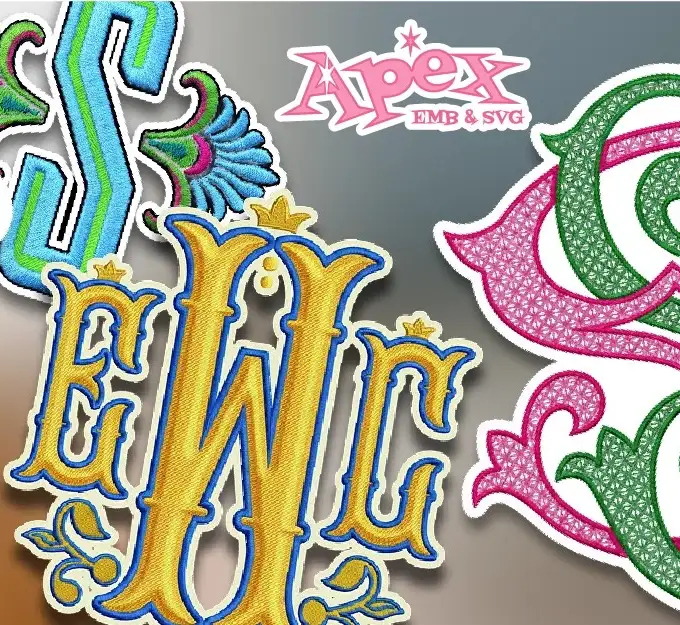
If you are choosing an embroidery font, 870+ products can be too many to browse without a plan. The useful starting point is three decisions: style, finished size, and file format. This guide maps the Apex collection around those choices. You can compare script, monogram, block, applique, 3D puff, and specialty styles, then narrow your choice before you download. The goal is simple: find lettering that suits the project and a format your machine or software can actually use. These are practical embroidery font examples you can use to compare styles.
A machine font is a digitized alphabet made for stitching, not simply a vector or typed outline. The file contains stitch information such as stitch type, underlay, pull compensation, and spacing. Each size is digitized separately so the lettering can stitch cleanly at that size. A design that looks good on screen can need different digitizing at another size.
That is why choosing by appearance alone can be misleading. Fabric, finished size, and intended use all affect the result. Apex groups its collection by visual style and by available file format. You will find fonts for embroidery projects ranging from names and monograms to teamwear, uniforms, gifts, and specialty lettering.
Start with script styles, monogram styles, or block styles. For monogram embroidery fonts, compare layouts built around initials. Then compare interlocking monogram fonts, decorative styles, formal and elegant fonts, casual styles, and whimsical styles. The collection also includes Curlz-style lettering, Greek styles, split monogram fonts, highly legible styles, TrueType styles, and bargain styles.
Script lettering gives names and words a connected, flowing look. Script is one of the strongest parts of the Apex collection, while chain stitch adds a distinct stitched texture. Examples include Chantal Script Regular 3D Puff Bean Chain Stitch Embroidery Font Bundle, Cassie Script Regular & 3D Puff Embroidery Font Bundle, Molly Script Regular & 3D Puff Embroidery Font, and Bernard Script Regular 3D Puff Chain Stitch Embroidery Font Bundle.
Choose this group when you want personal, flowing lettering for names or apparel. A script embroidery font is a natural fit when the letters should flow together. See the script styles collection and raised-lettering ideas.
3D puff embroidery fonts are designed for raised lettering and are a major part of actual Apex orders. Chantal, Cassie, Molly, and Cyrus Script Regular & 3D Puff Embroidery Font Pack are real examples. Choose this group when raised lettering is the visual goal and the project suits that construction.
Monogram styles focus on initials and personalized arrangements. School Tall Machine Monogram Embroidery BX Font, Bamboo Fishtail Monogram Embroidery Font (BX Included), and Brigitte Monogram Applique Embroidery Font are real Apex examples. Interlocking styles give you another way to combine initials as one design.
Choose this group when initials or personalization are the focal point. Browse the monogram styles collection or interlocking monogram fonts. For technique, see the monogram embroidery guide.
Applique embroidery fonts combine lettering with fabric pieces rather than relying only on thread coverage. Brigitte Monogram Applique Embroidery Font is one Apex example. This style can give a monogram or larger letter treatment a fabric-based visual element.
Choose this group when applique is part of the look. Compare it with the decorative styles collection.
Block lettering favors clear shapes and strong readability. Athletic and varsity styles push that look toward teamwear and school spirit projects. Shadow Stacked Athletic Block Machine Embroidery Font is a real Apex best seller.